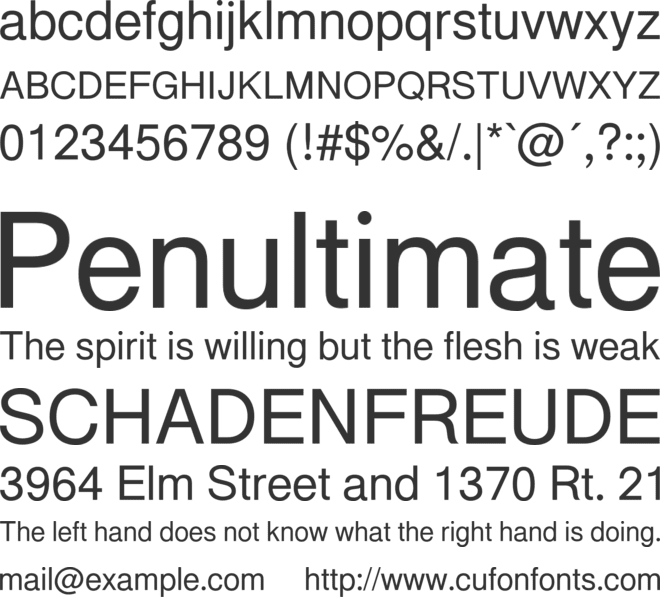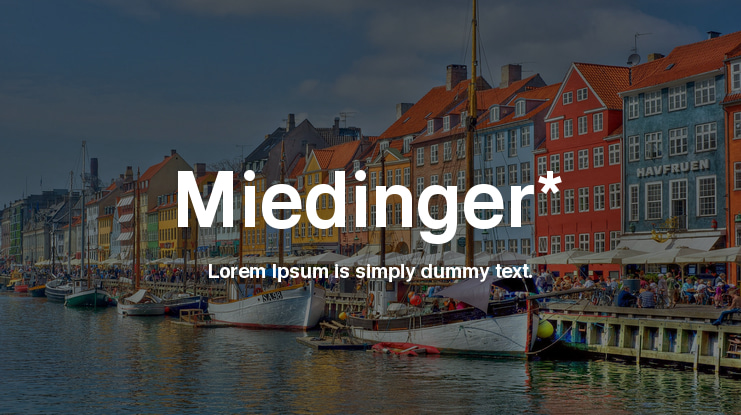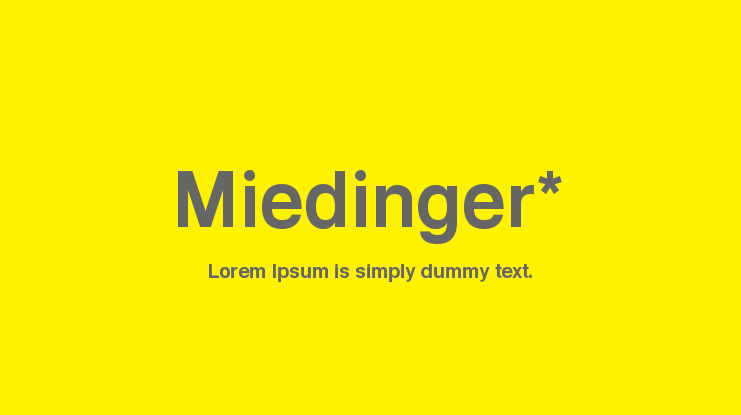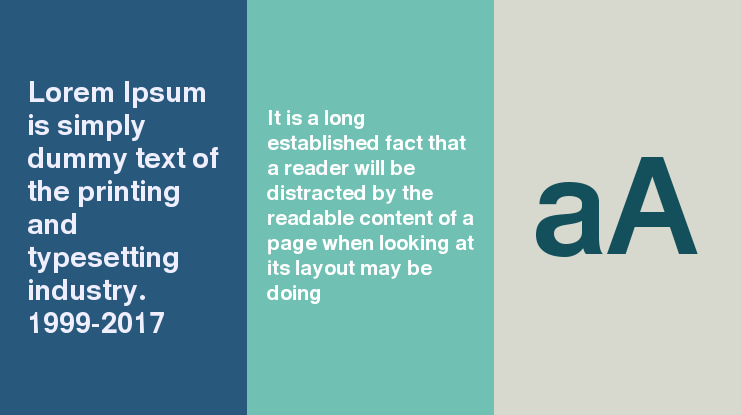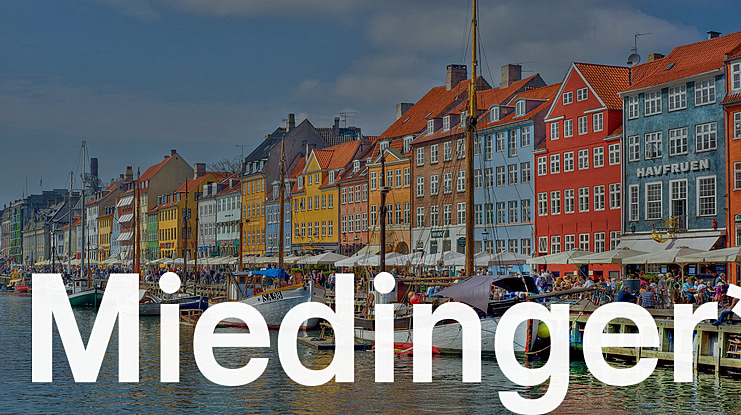
Miedinger* is based on the work of Max Miedinger. Initially I set out to make as faithful a replicant of Helvetica as possible. I have since had a change of heart and elected to scrap the current font and design a new, Helvetica-inspired one. I did, however, finish creating two weights before this change of heart, which are available.